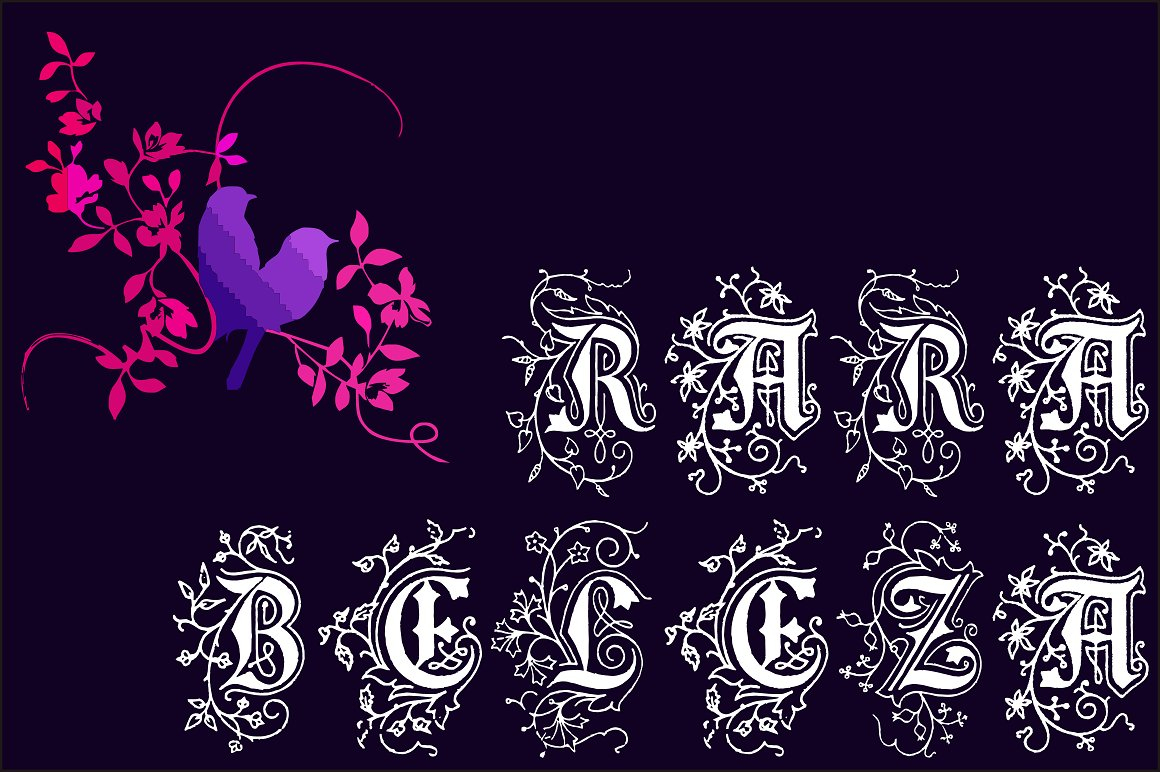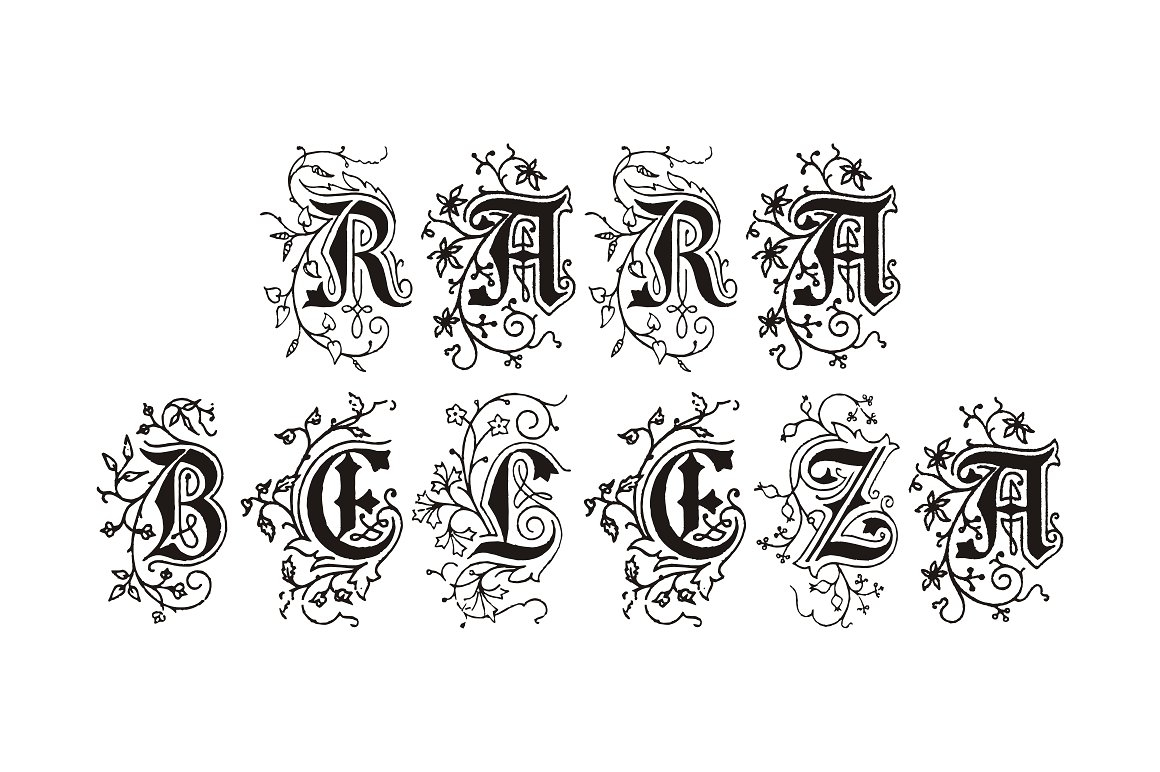
About Rara Beleza Font
The Rara Beleza is a classic and antique font design remastered by the type foundry Intellecta Design. It’s a great display face for headers and antique-like projects. It contains only uppercase letters.